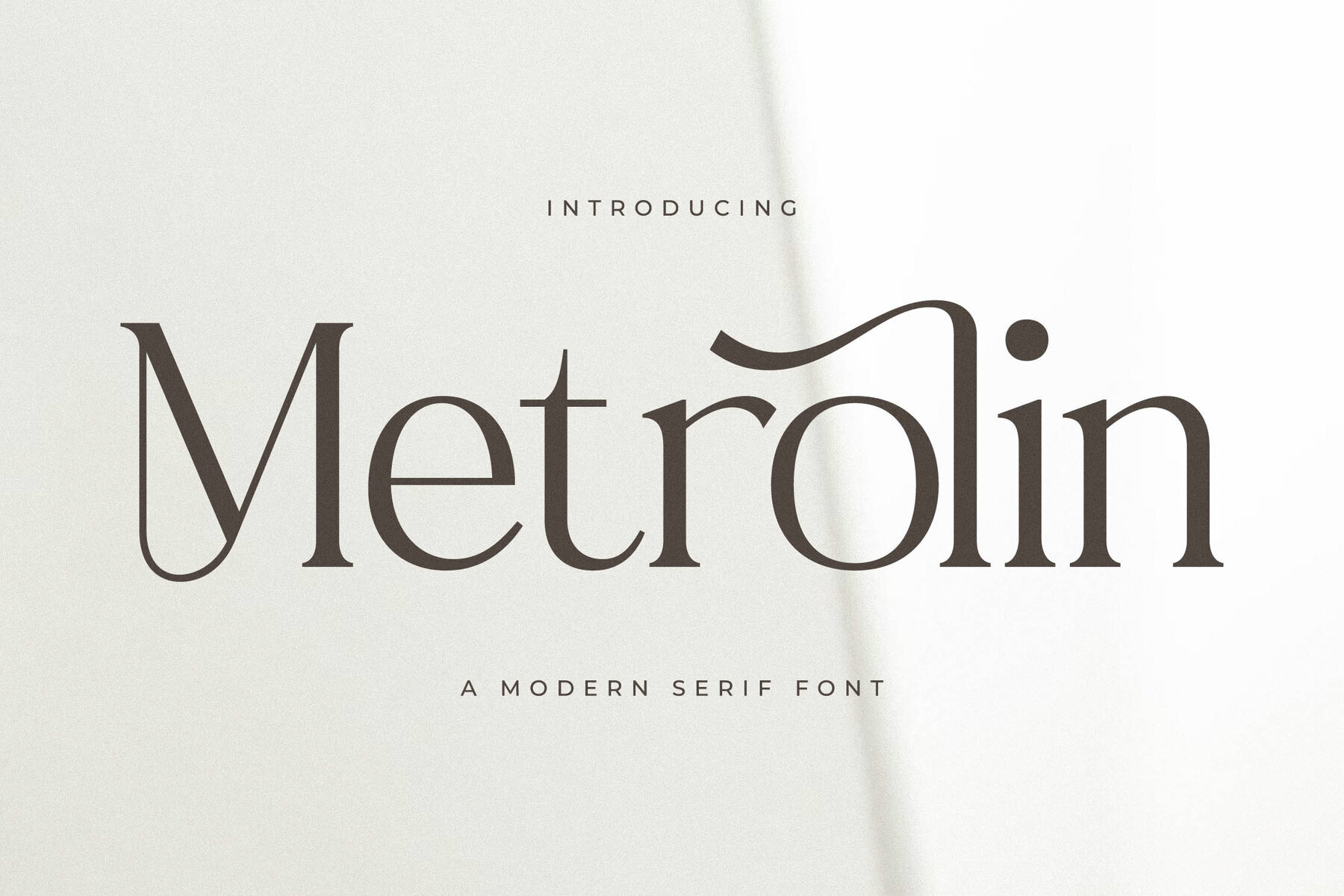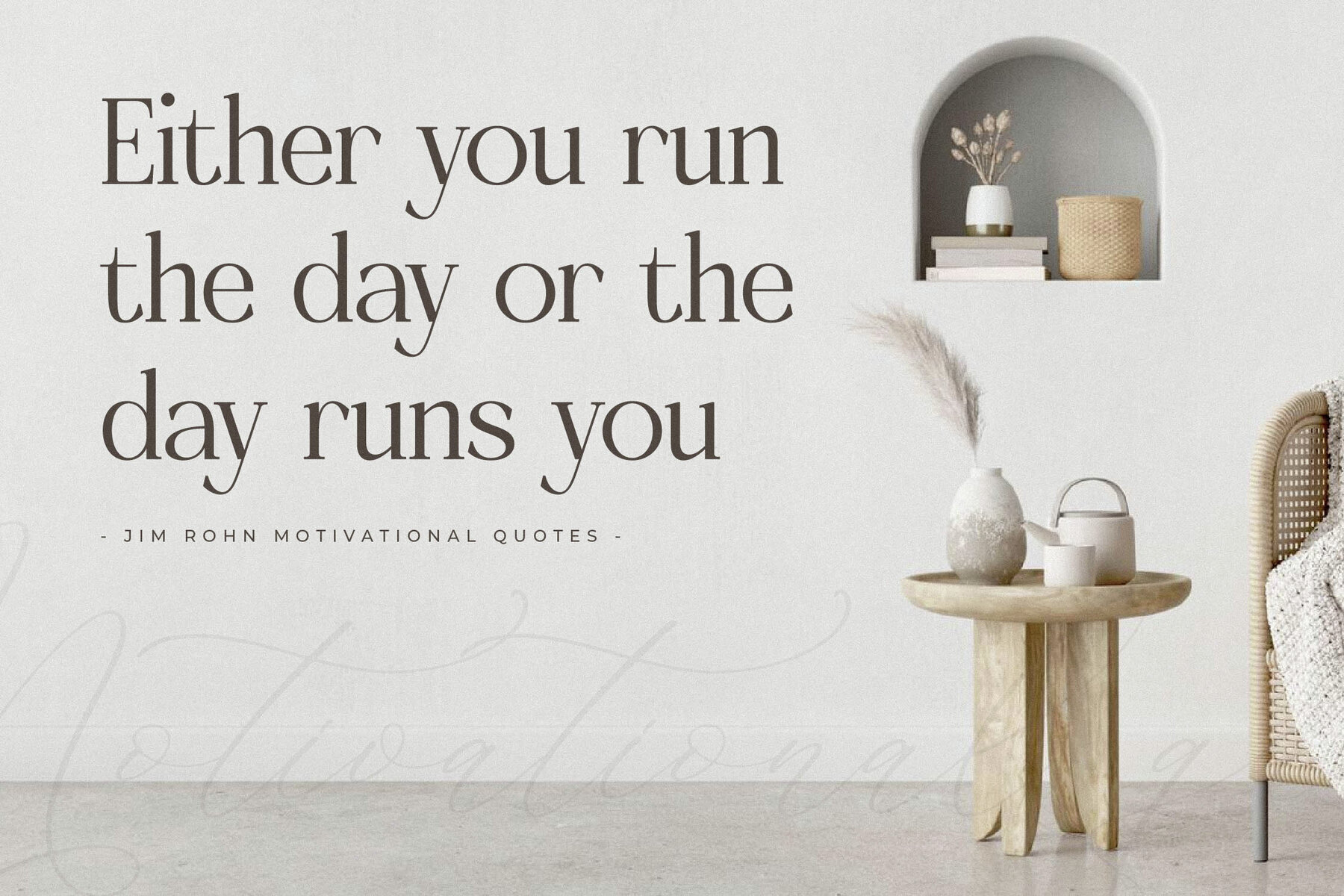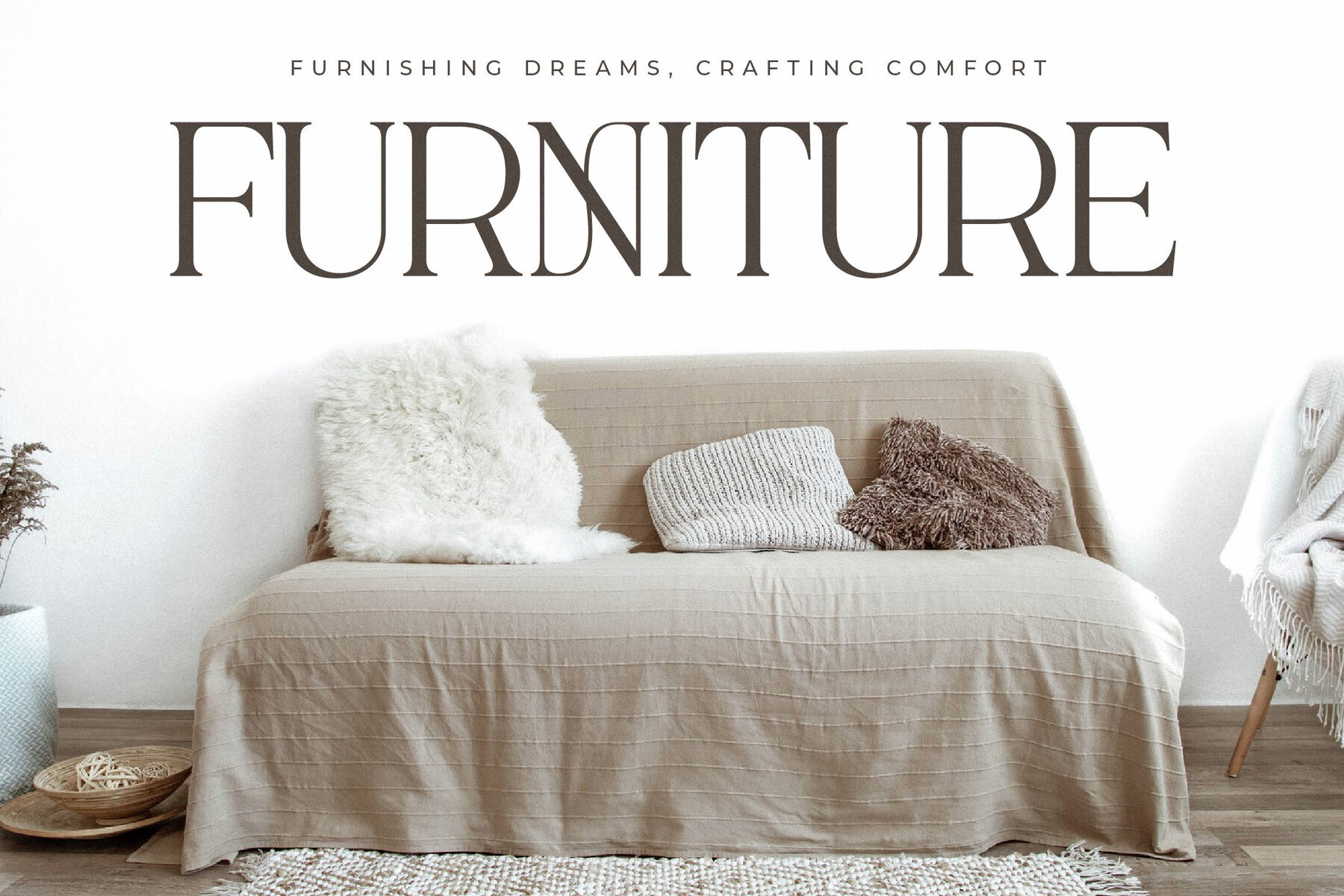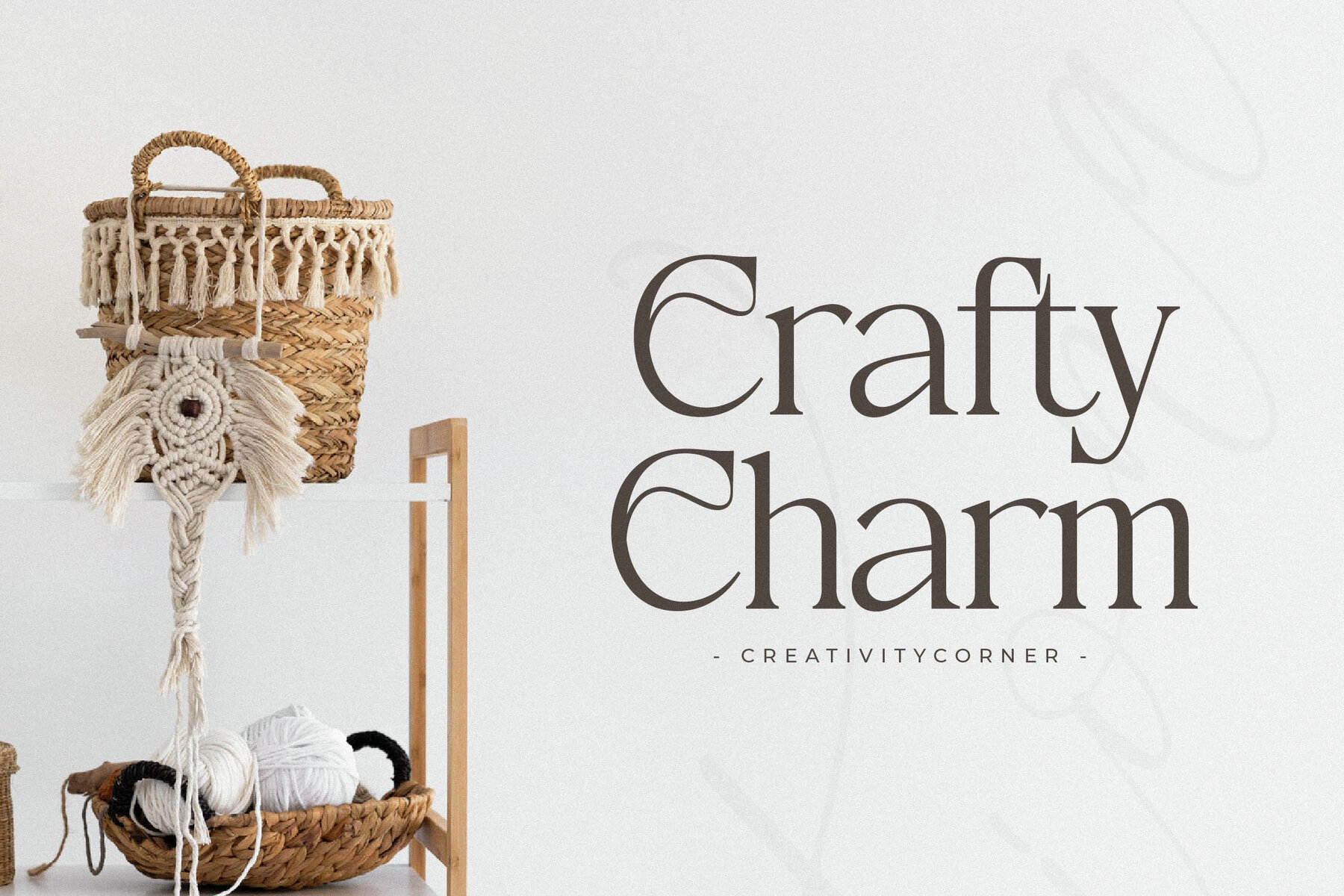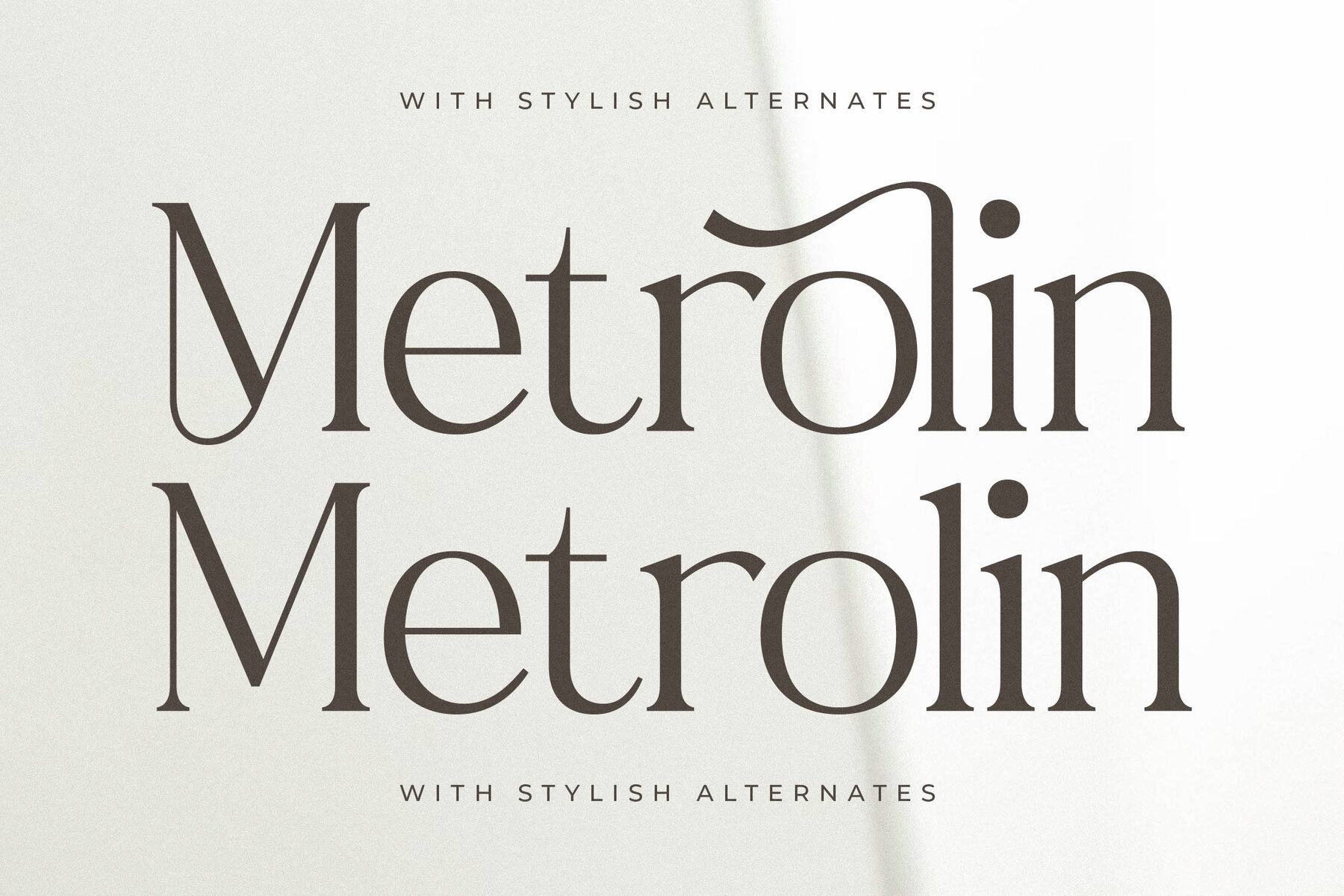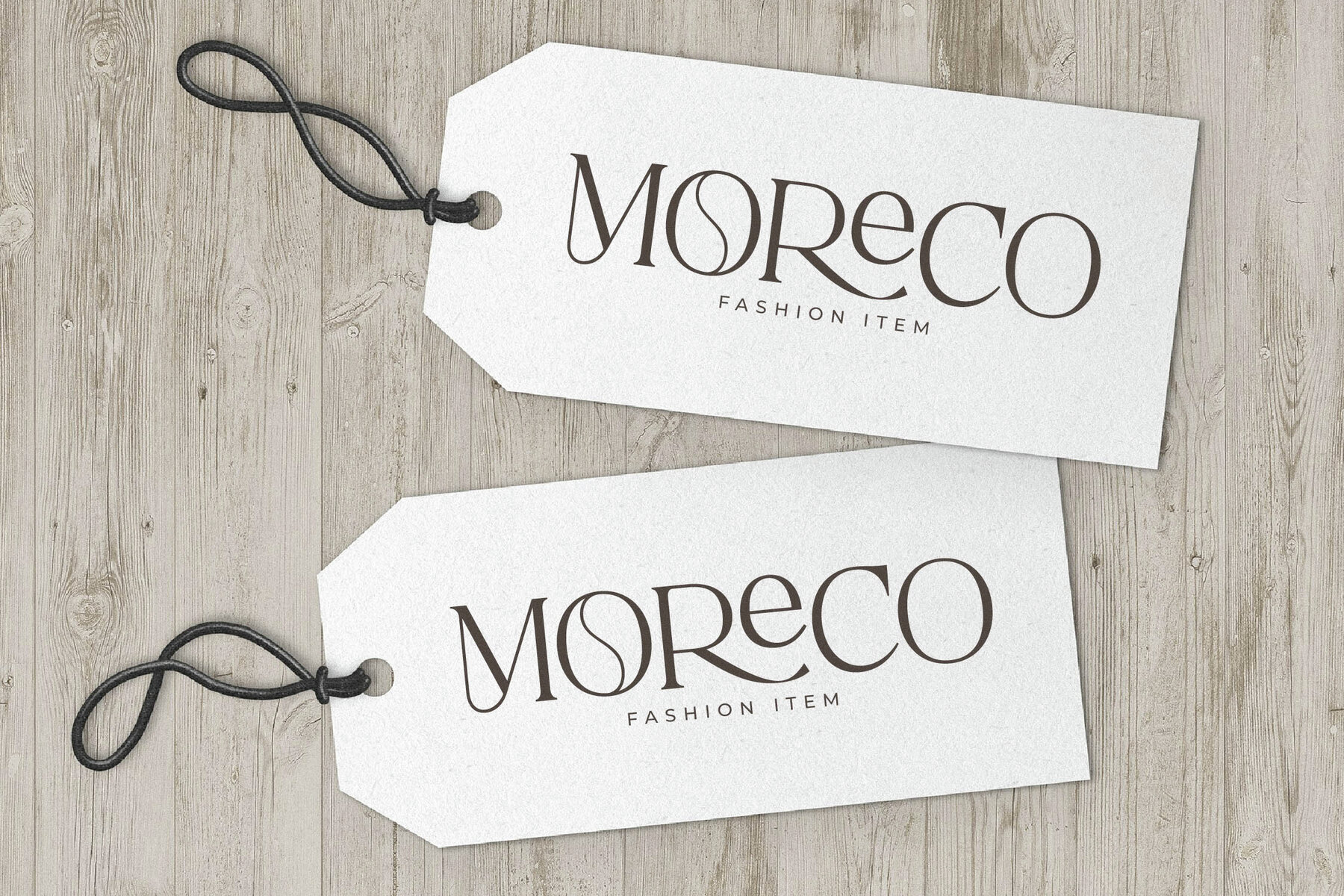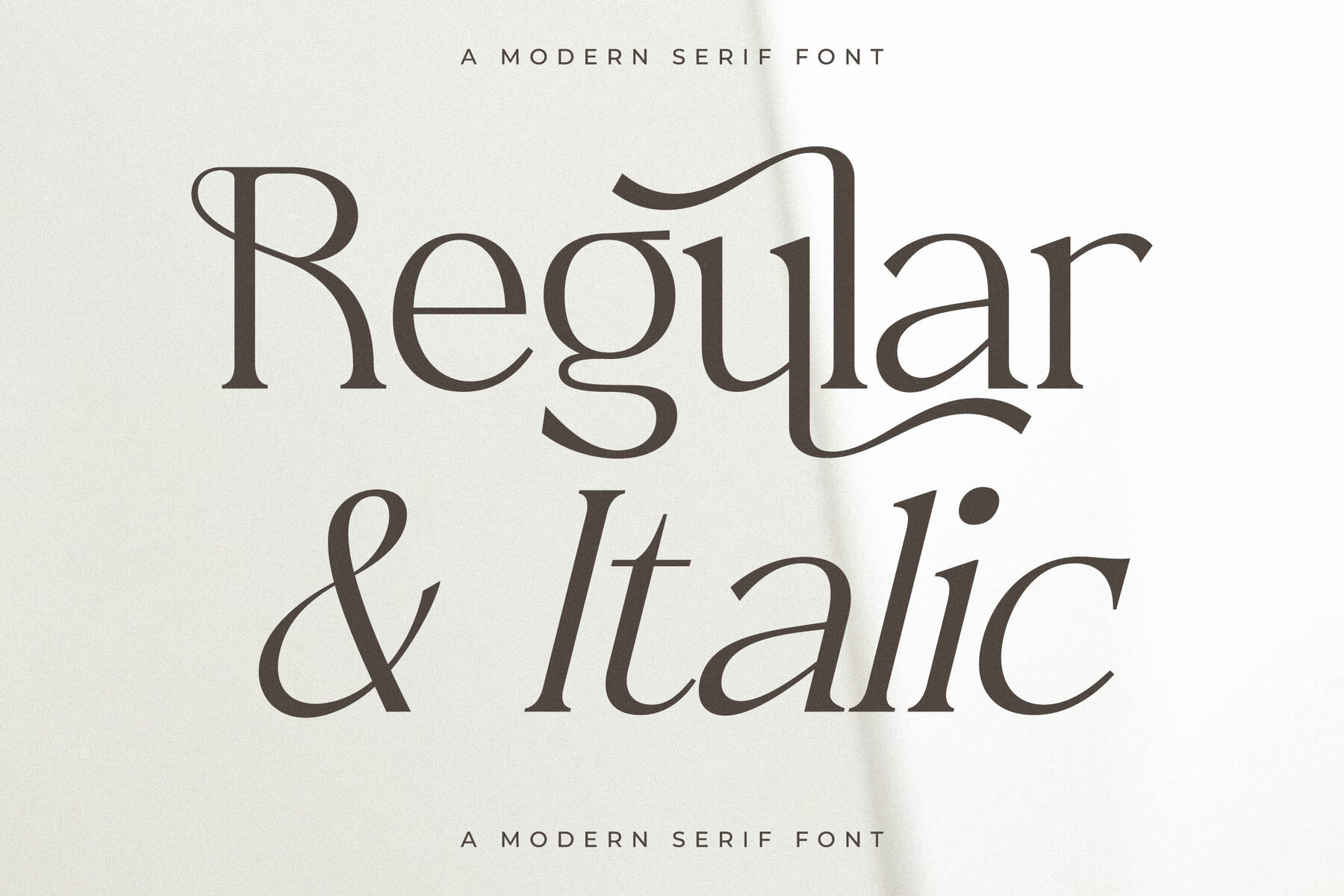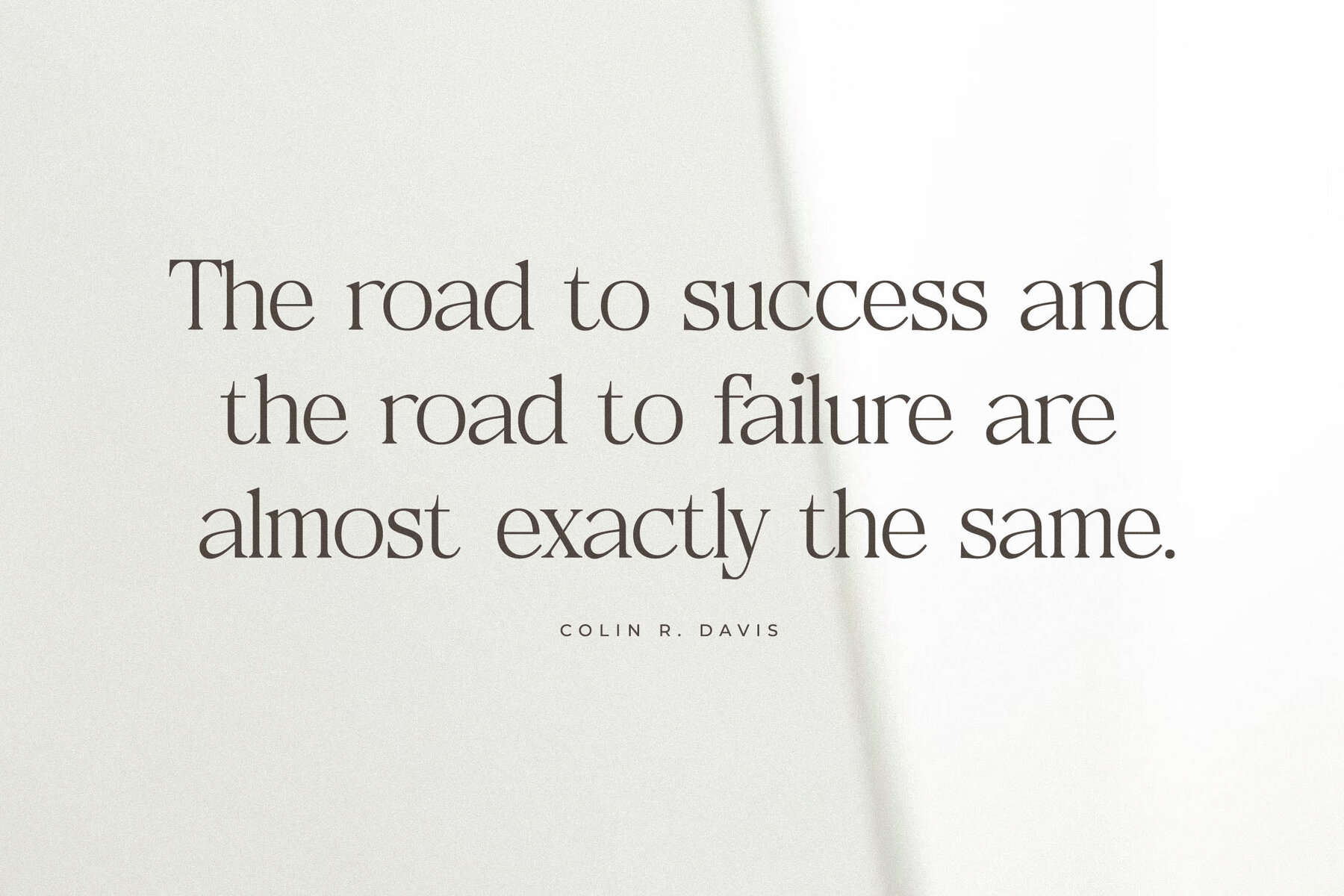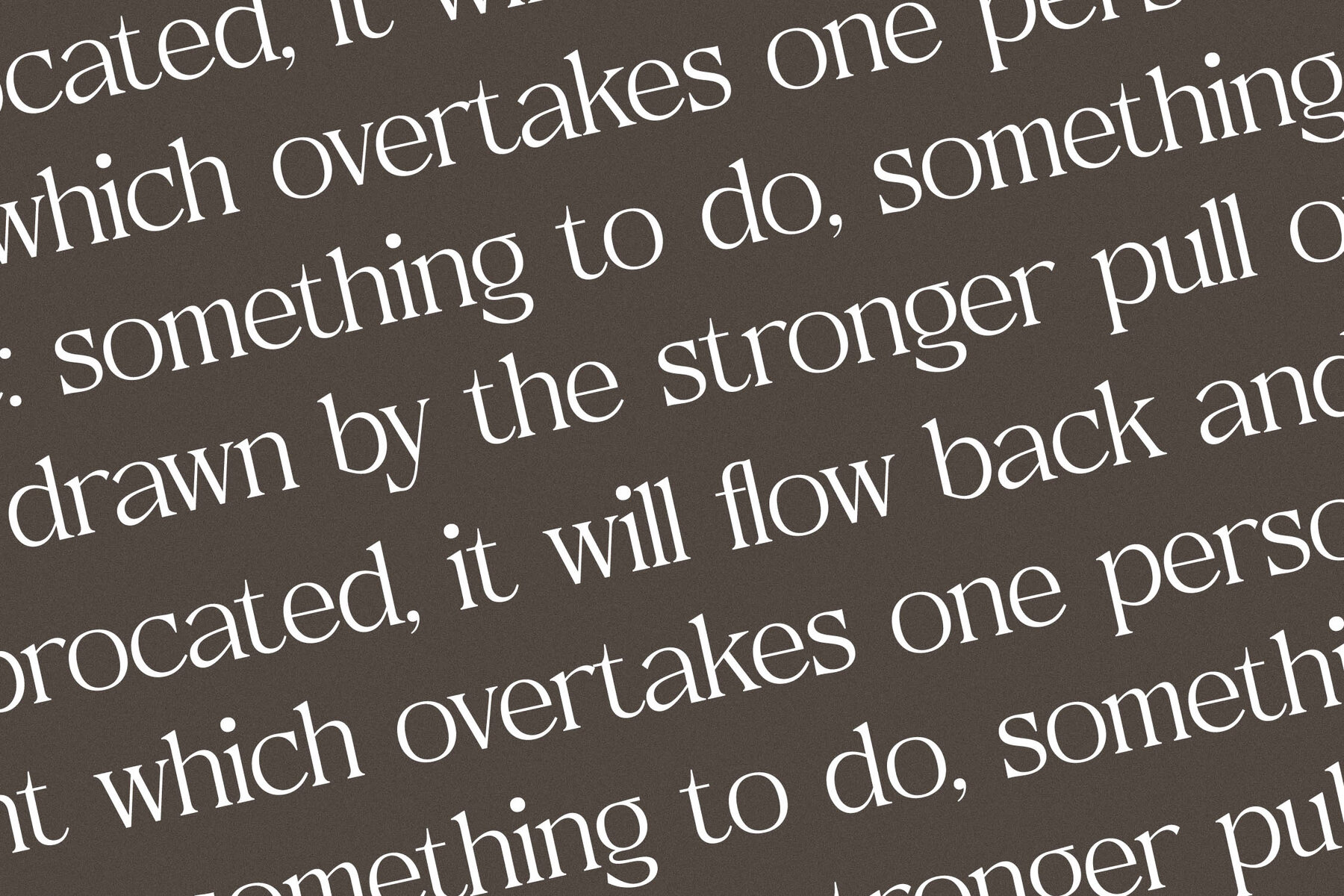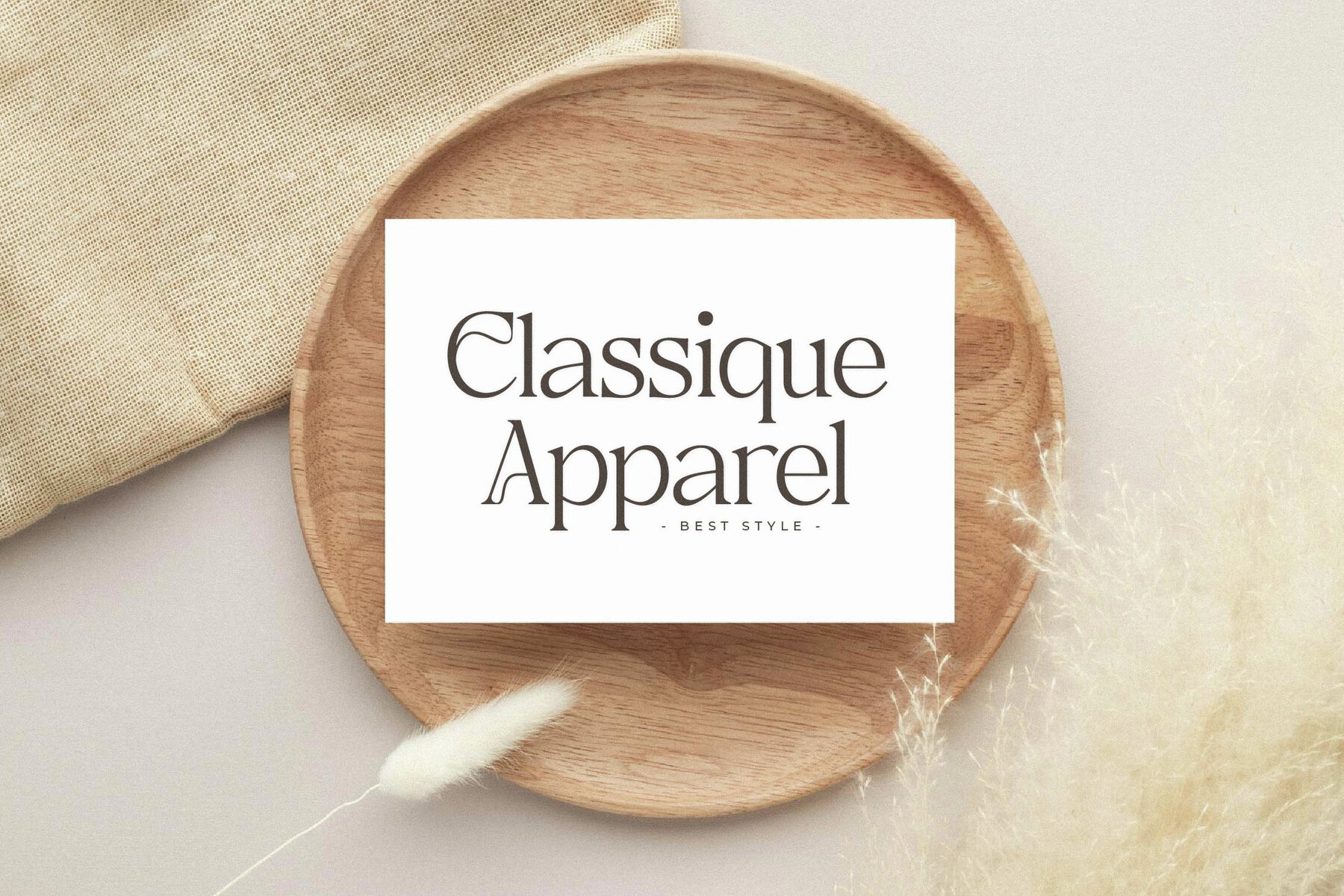
Metrolin Font
Discover the elegant and timeless appeal of the Metrolin Typeface, crafted by Storytype Studio. This serif typeface combines a classic aesthetic with a modern look, perfect for adding a touch of sophistication to any project. Whether you are designing a luxury logo, a book title, or a fashion brand, Metrolin is the versatile choice you'll appreciate. It also lends itself beautifully to magazine layouts, elegant clothing designs, and artistic quotes.Metrolin Typeface